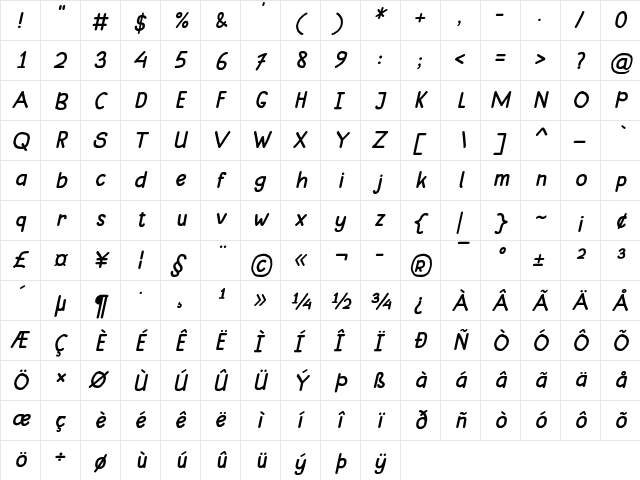
Mungkin Italic
| Foundry | 7NTypes |
| Designer | Andrian Dehasta; Situjuh Nazara |
Design Context for Mungkin Typeface
Mungkin offers clean, dependable letterforms without strong stylistic allegiance, making it a practical choice for designers who need flexibility. Its italic angle brings a sense of urgency and motion to the letterforms.
Pro Tip: Try Mungkin for annotation and caption copy alongside an upright companion — the contrast in angle creates a dynamic but ordered typographic system.